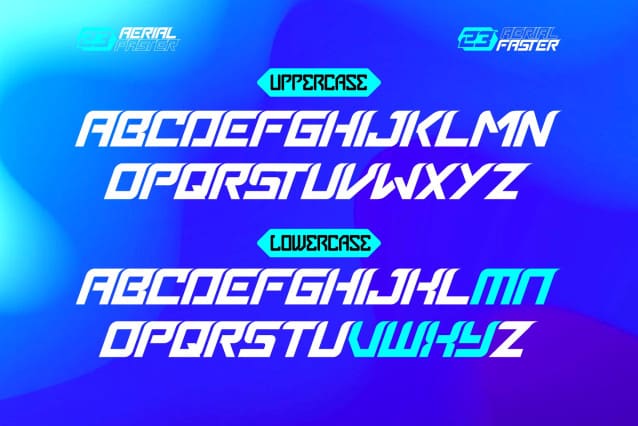
Aerial Faster – Regular Font
Aerial Faster – Regular Font Display Font is built to express adrenaline, performance, and futuristic energy through typography. Designed for speed-themed branding, esports, automotive posters, and racing event visuals, this racing display font brings motion and intensity to every letterform.
Its extended proportions, sharp angles, and aerodynamic shapes make Aerial Faster stand out in bold compositions. Whether you’re working on dynamic branding, digital campaigns, or modern sports design, this font ensures your message crosses the finish line in style.
Racing Display Font Engineered for Bold Visuals
Aerial Faster was built with precision to mimic the speed of racing aesthetics. Every curve and corner is shaped to reflect momentum. This racing display font combines power with readability, ensuring that your design remains clear even at high visual velocity.
Use Aerial Faster for car brands, event promotions, gaming visuals, or tech startup designs. Its aerodynamic structure adapts perfectly to bold titles, digital interfaces, and merchandise that demand performance-driven aesthetics.
Key Features of Aerial Faster – Racing Display Font
Professional designers appreciate fonts that combine function, beauty, and strength. Here’s what makes Aerial Faster – Racing Display Font a must-have:
Character Support: Uppercase, Lowercase, Numbers, Punctuations
Multilingual Support: Extended Latin coverage for global projects
Futuristic Aesthetic: Perfect for sports, automotive, and technology visuals
Why Designers Love Aerial Faster
Designers love Aerial Faster – Racing Display Font because it captures the thrill of speed and innovation while maintaining strong professional readability. It’s fast, modern, and incredibly flexible.
Font Pairing Recommendations
Typography harmony enhances brand storytelling. Here are the best pairings for Aerial Faster:
Gued – Geometric Sans Serif Font: Offers a minimal, structured contrast to Aerial Faster’s racing energy.
Bolde – Powerful Sans Serif: Balances futuristic motion with corporate confidence.
Roadpunks – Handbrush Typeface: Adds expressive grit and rebellious character for poster designs and racing graphics.
Together, these fonts complement Aerial Faster’s aerodynamic energy and give your design more personality and versatility.
How to Use Aerial Faster for Branding and Visual Impact
In sports and esports, typography is as vital as the logo itself. Aerial Faster, as a racing display font, gives instant velocity to your visuals. It’s ideal for creating titles for racing championships, adrenaline-themed brands, or digital competitions.
Its modern extended letterforms exude dominance, while its futuristic precision makes it great for motorsport packaging, branding, and large-scale advertising banners.
Why Aerial Faster is the Future of Racing Typography
Aerial Faster isn’t just a font—it’s motion captured in type. As a racing display font, it symbolizes modern energy, digital precision, and the unstoppable pursuit of speed.
Designers who want to create high-performance visuals love Aerial Faster for its modernity and strength. With built-in multilingual support and professional formats, it’s an all-in-one solution for powerful branding.Aerial Faster – Racing Display Font is the perfect choice for designers aiming to capture adrenaline, motion, and modern power. Whether for sports, automotive, or futuristic projects, this racing display font accelerates your design’s energy and imp